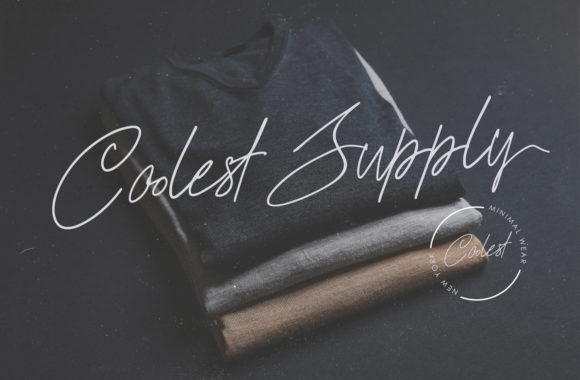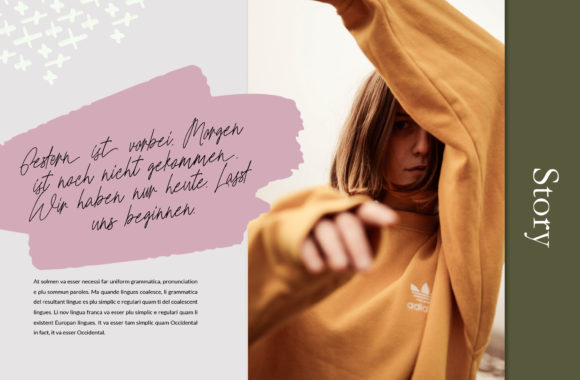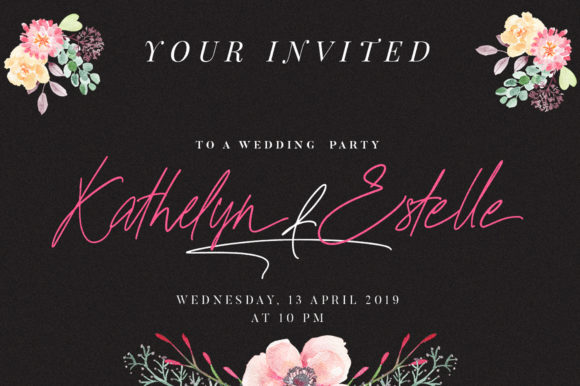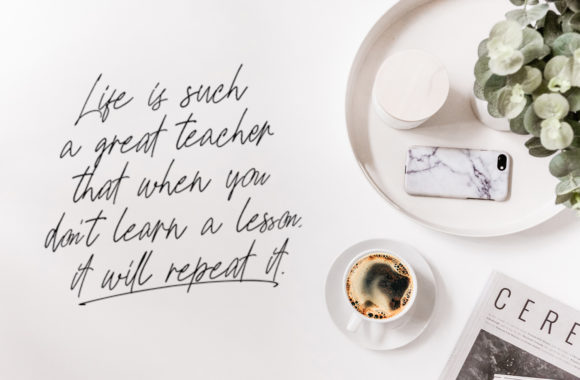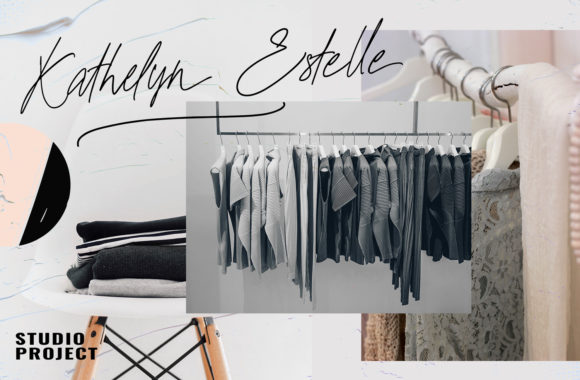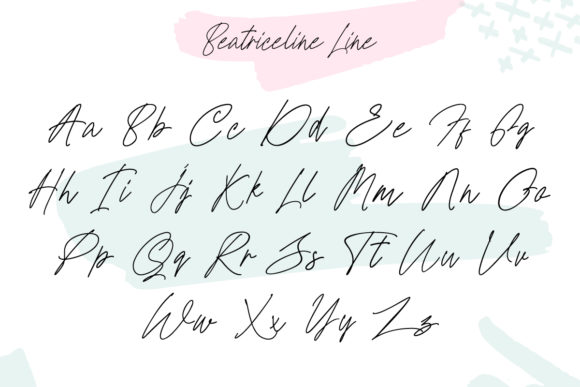
Introducing the Beatrice Line Font: A Unique Handwritten Style for Creative Designs
In the world of typography, a good font can make all the difference in creating visually appealing designs. For designers and crafters looking for a distinctive and elegant handwritten font, the Beatrice Line Font is an excellent choice. This unique font boasts a flowing and easy signature style that makes it perfect for a variety of design projects, from quotes and logos to labels, packaging designs, and blog headlines.
The Characteristics of the Beatrice Line Font
The Beatrice Line Font is a carefully crafted handwritten font that exudes a sense of elegance and sophistication. Its unique flow and signature style are designed to add a personal touch to any design project. The font features:
- Unique Handwritten Style: The Beatrice Line Font is a genuine handwritten font that captures the essence of personal and creative expression.
- Easy Signature Style: The font’s signature style is effortless and fluid, making it perfect for designs that require a personal touch.
- Legibility: Despite its handwritten nature, the Beatrice Line Font remains highly legible, ensuring that your message is conveyed clearly.
Uses of the Beatrice Line Font
The versatility of the Beatrice Line Font makes it suitable for a wide range of design projects. Here are some of the ways you can use this beautiful font:
- Quotes and Inspirational Messages: Add a touch of elegance to your quotes and inspirational messages with the Beatrice Line Font.
- Logos and Branding: Create a unique and memorable logo for your brand using the Beatrice Line Font.
- Signatures and Labels: Use the font to create personalized signatures and labels that add a touch of sophistication to your designs.
- Packaging Designs: The Beatrice Line Font is perfect for packaging designs that require a creative and eye-catching approach.
- Blog Headlines: Add a personal touch to your blog headlines and make them stand out with the Beatrice Line Font.
Why Choose the Beatrice Line Font?
With so many fonts available, why choose the Beatrice Line Font? Here are a few reasons why designers and crafters love this unique handwritten font:
- Uniqueness: The Beatrice Line Font is a one-of-a-kind font that will set your designs apart from the rest.
- Elegance: The font’s elegant and sophisticated style makes it perfect for designs that require a touch of refinement.
- Versatility: The Beatrice Line Font can be used for a wide range of design projects, making it a valuable addition to your font collection.
Tips for Using the Beatrice Line Font
To get the most out of the Beatrice Line Font, here are a few tips to keep in mind:
- Experiment with Sizes: The Beatrice Line Font looks great in various sizes, so don’t be afraid to experiment and find the perfect size for your design.
- Pair with Other Fonts: The Beatrice Line Font pairs well with other fonts, so try combining it with different fonts to create a unique and interesting design.
- Use it Sparingly: While the Beatrice Line Font is beautiful, it’s best to use it sparingly to avoid overwhelming your design.
The Beatrice Line Font is a unique and elegant handwritten font that is perfect for designers and crafters looking to add a personal touch to their designs. Its flowing and easy signature style makes it suitable for a wide range of design projects, from quotes and logos to labels and packaging designs. With its uniqueness, elegance, and versatility, the Beatrice Line Font is a valuable addition to any font collection.